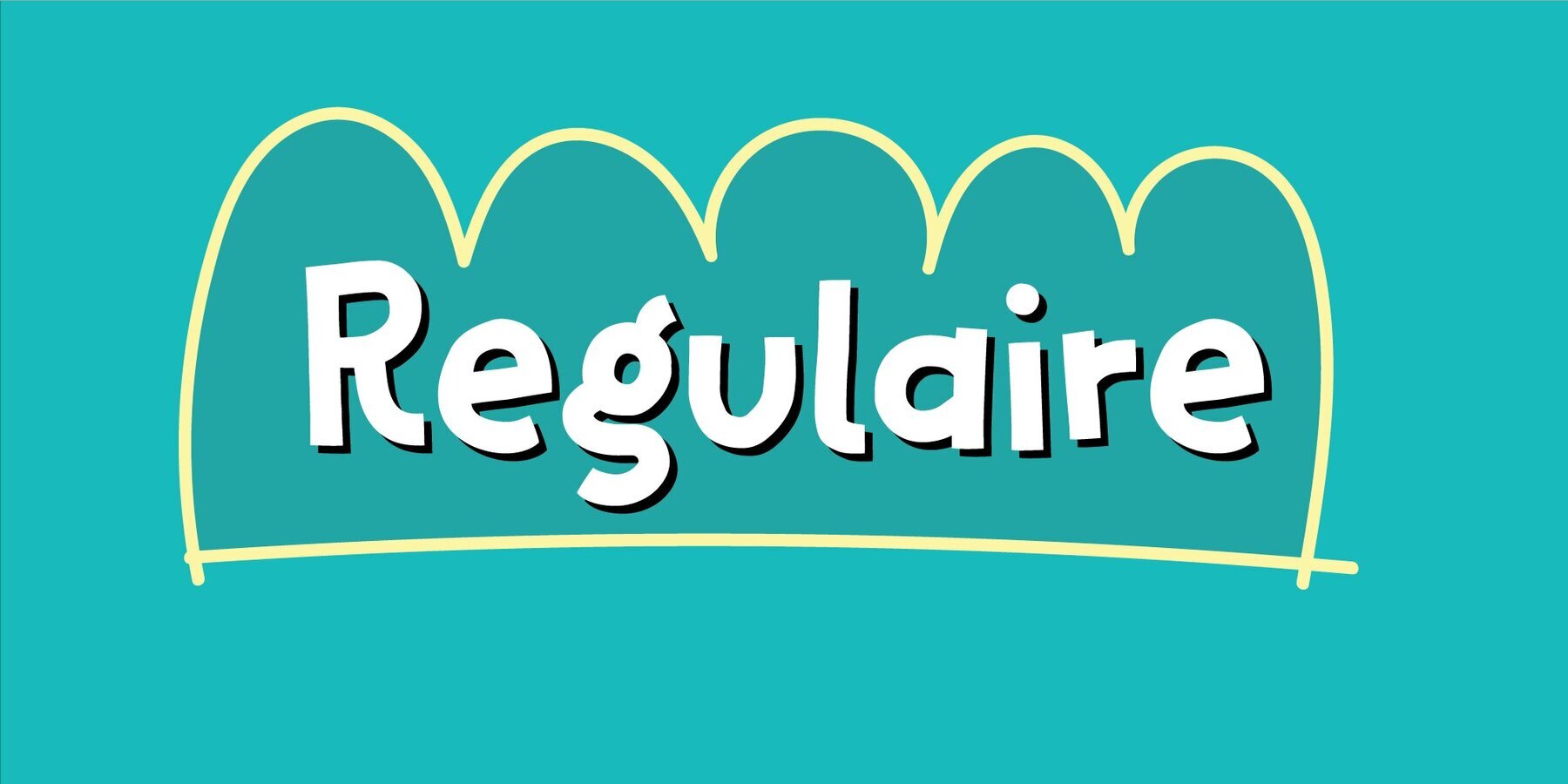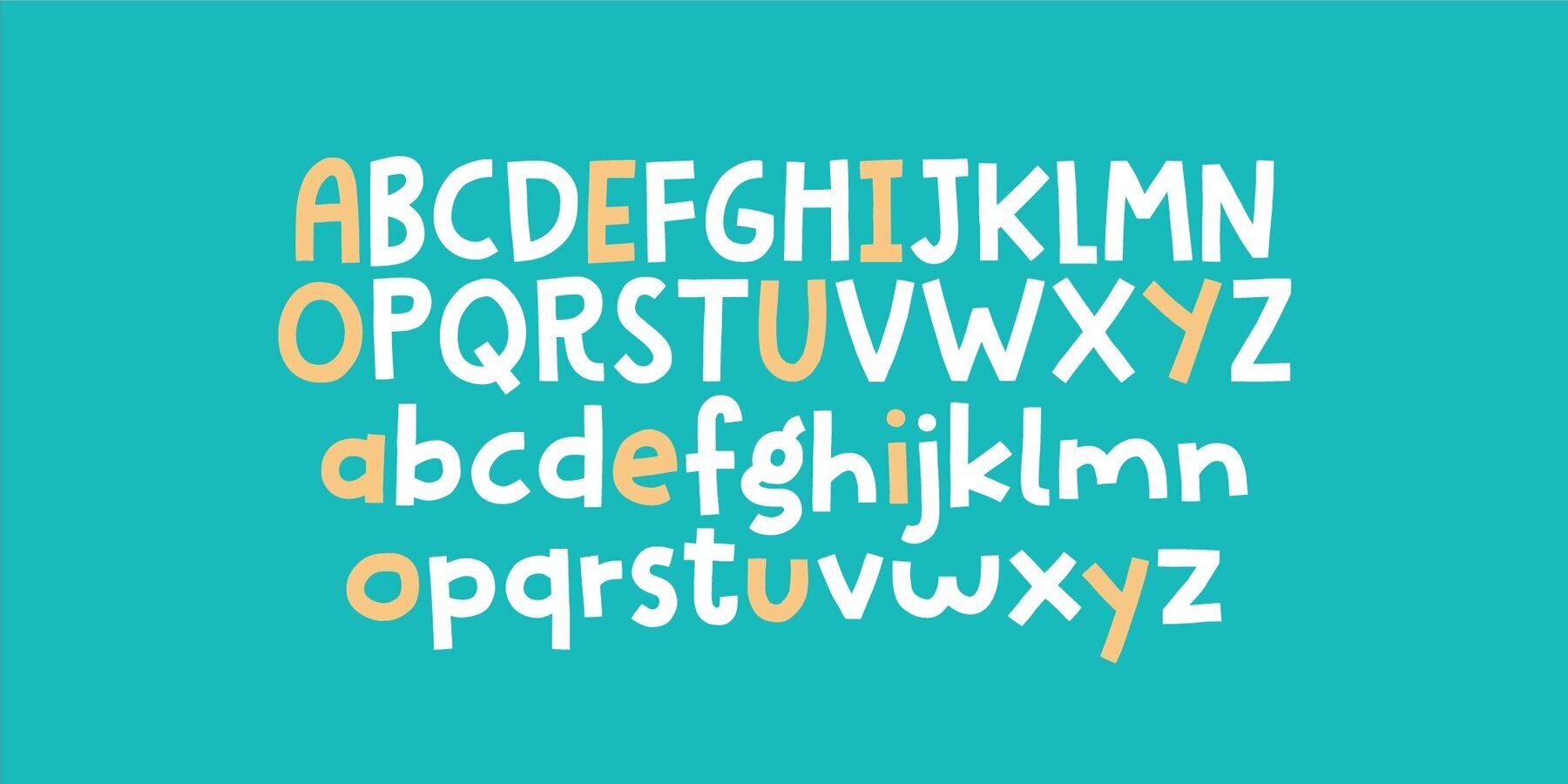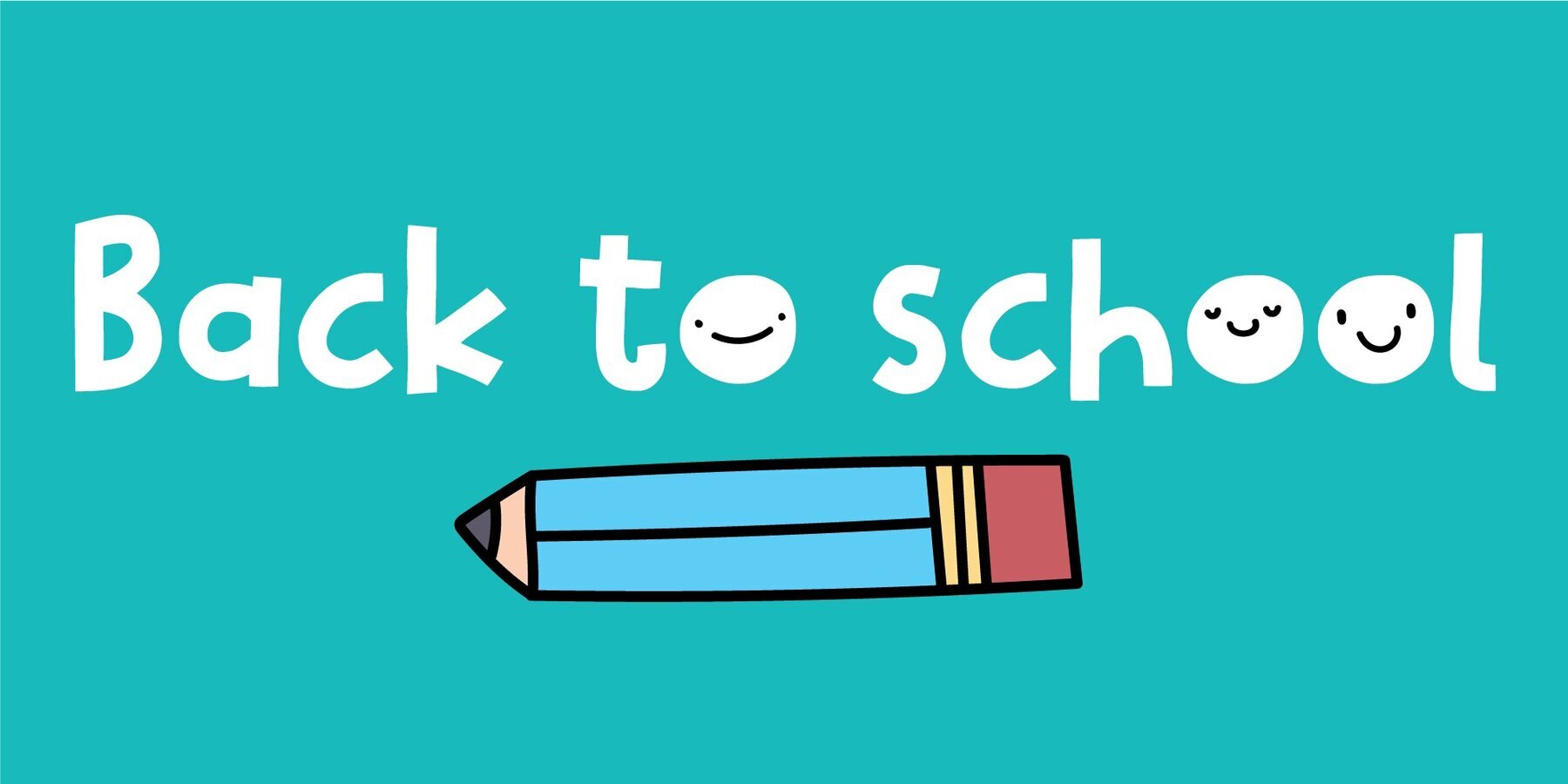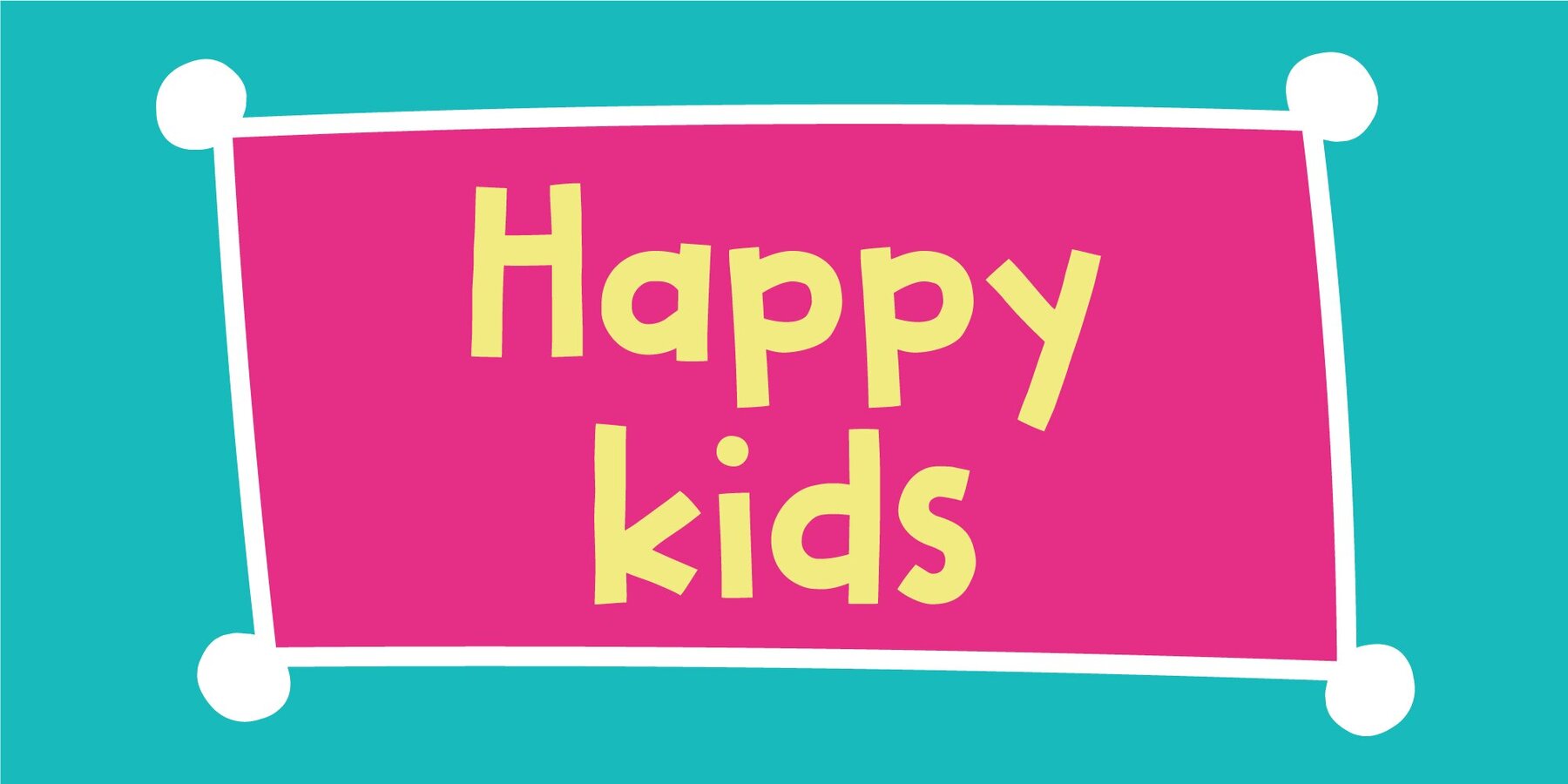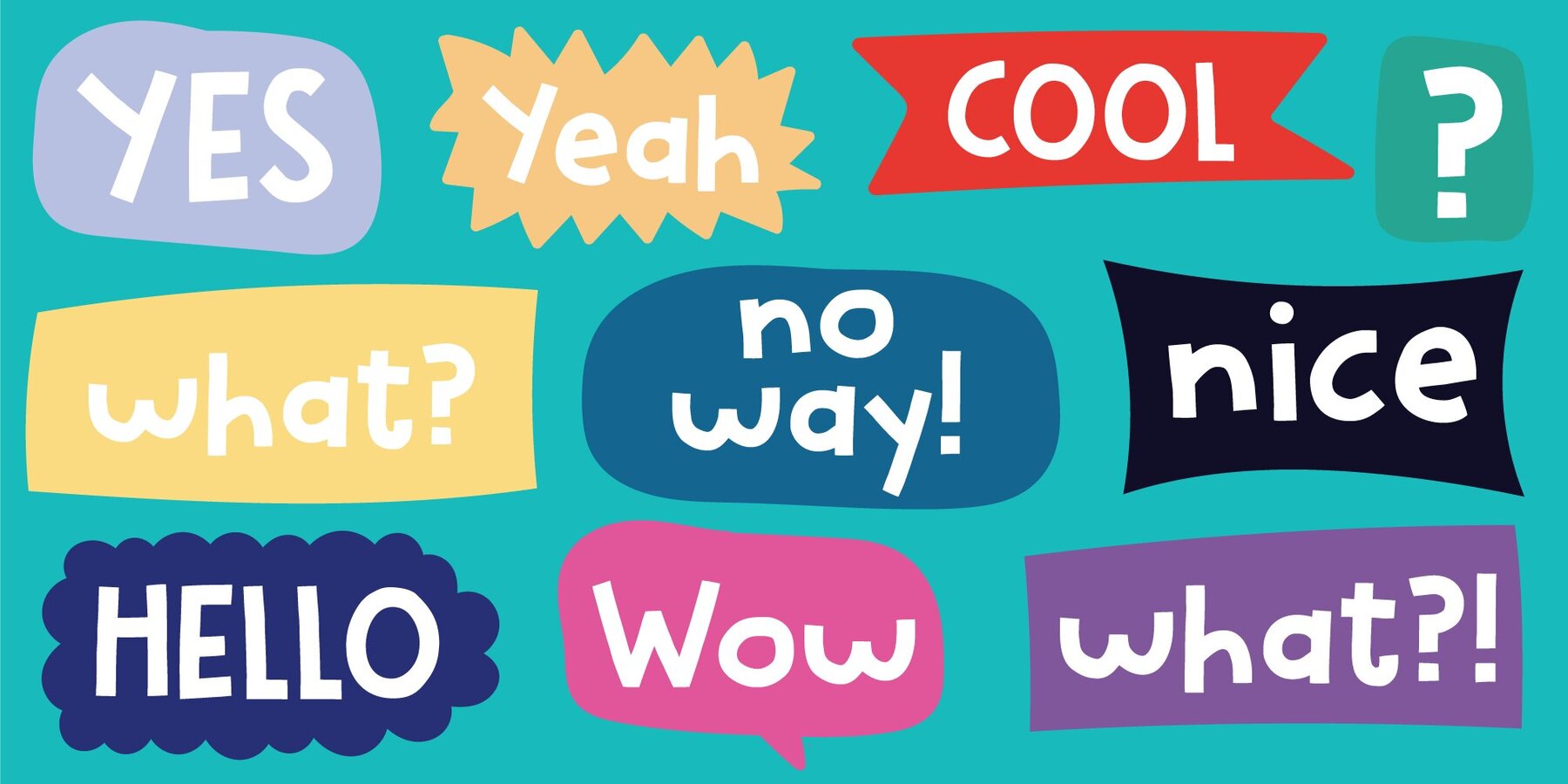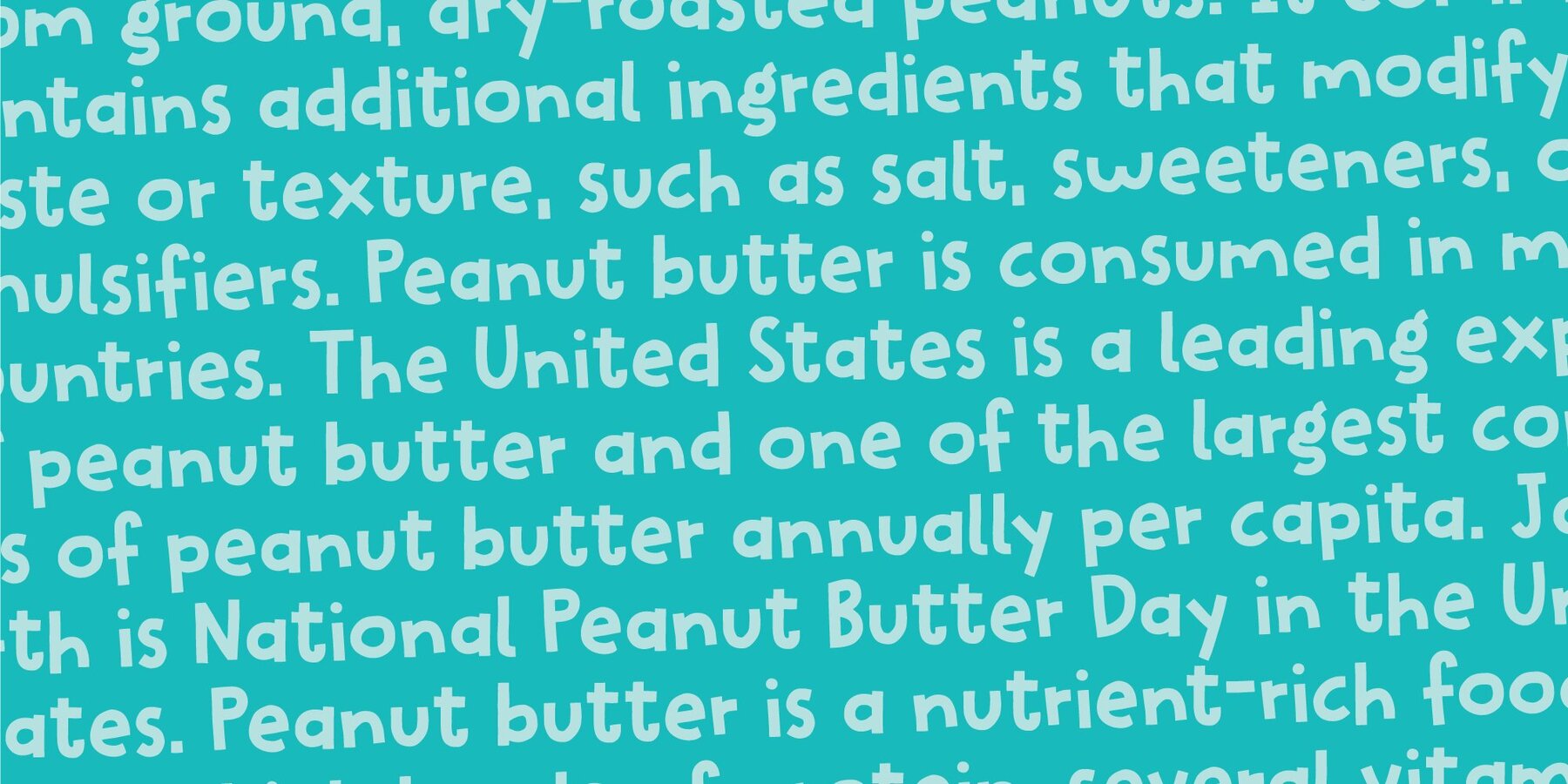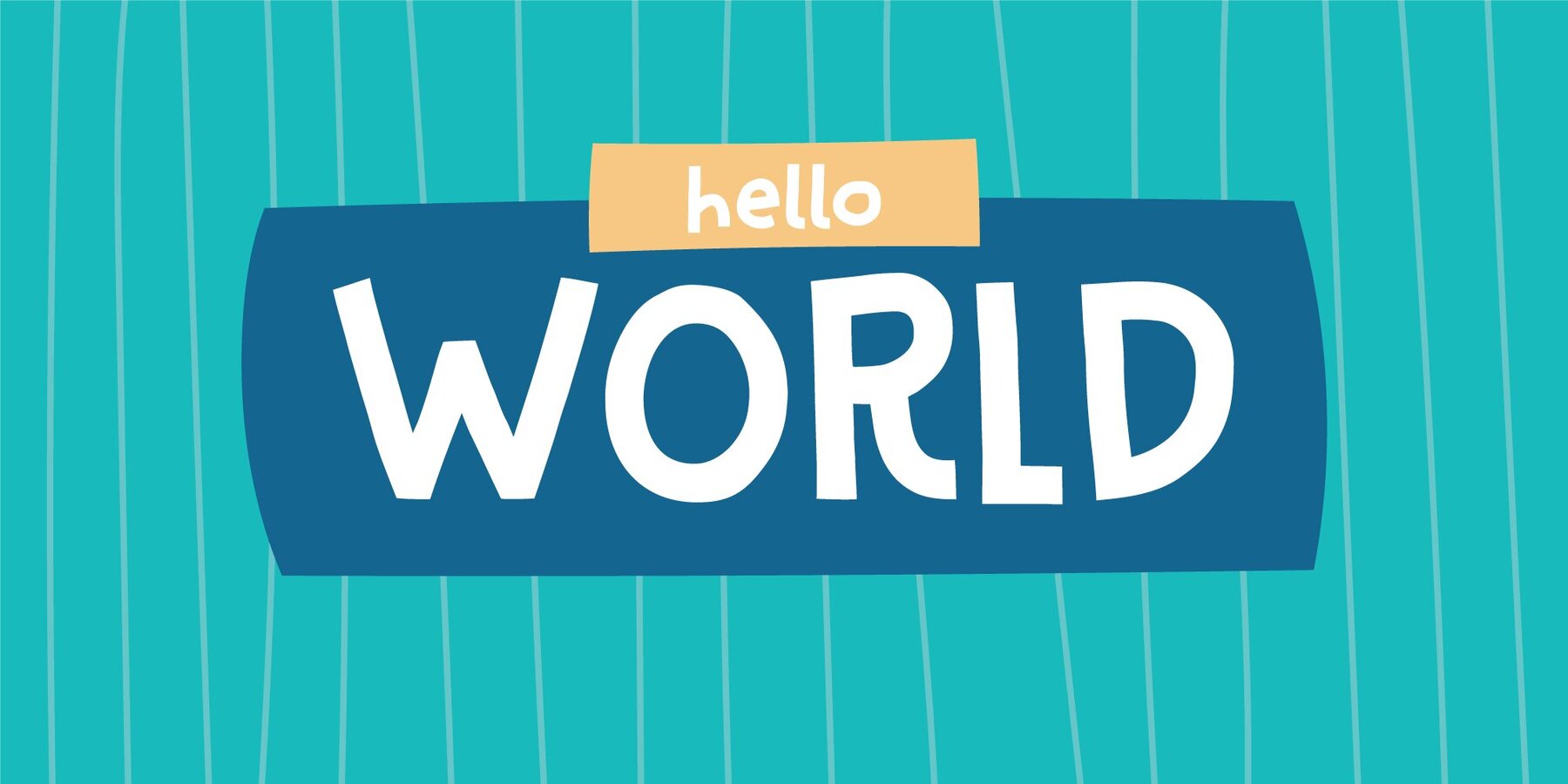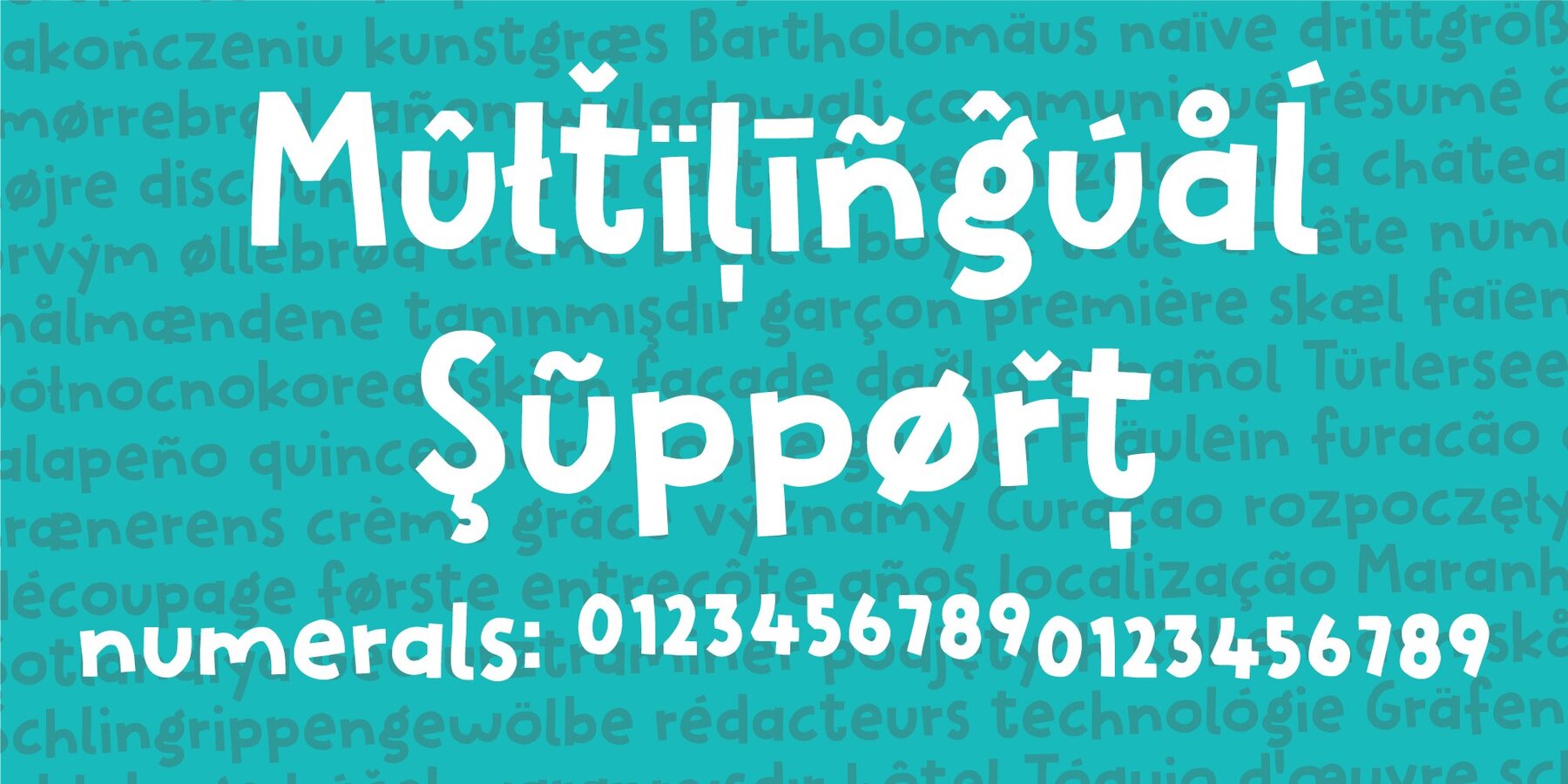
Regulaire Font
Regulaire is my laid back comic font, inspired by graffiti and my everyday regular handwriting.Works quite nice for kids products, comics, party posters - or anything that needs a casual comic look!